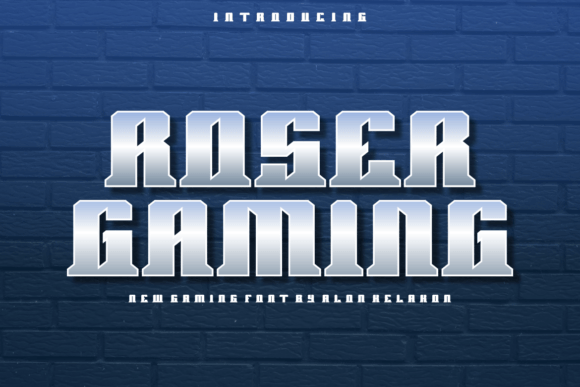
Behold, the Roser Gaming Font, a typographic masterpiece designed to elevate your digital creations to breathtaking heights. This display font, a true work of art by alonkelakon, is much more than just a collection of characters; it's an instrument of creativity, a gateway to a world of captivating designs.
Roser Gaming Font's captivating personality shines through in every curve and line, inspiring you to weave tales of valiant knights, daring adventurers, and worlds waiting to be explored. Whether crafting logos that demand attention or crafting websites that leave a lasting impression, Roser Gaming Font is your trusted companion, guiding you towards design greatness.
Embrace the power of individuality with Roser Gaming Font. Its meticulously crafted characters dance across the screen, capturing hearts and imaginations. Dive into a realm of possibilities, where your ideas take center stage and your designs leave an indelible mark.
Step into the spotlight with Roser Gaming Font and elevate your creations to legendary status. Its charm and versatility will enchant your audience, leaving them spellbound by your designs. Unleash your creativity and embark on a journey where every letter becomes a brushstroke, painting a picture of your limitless imagination.